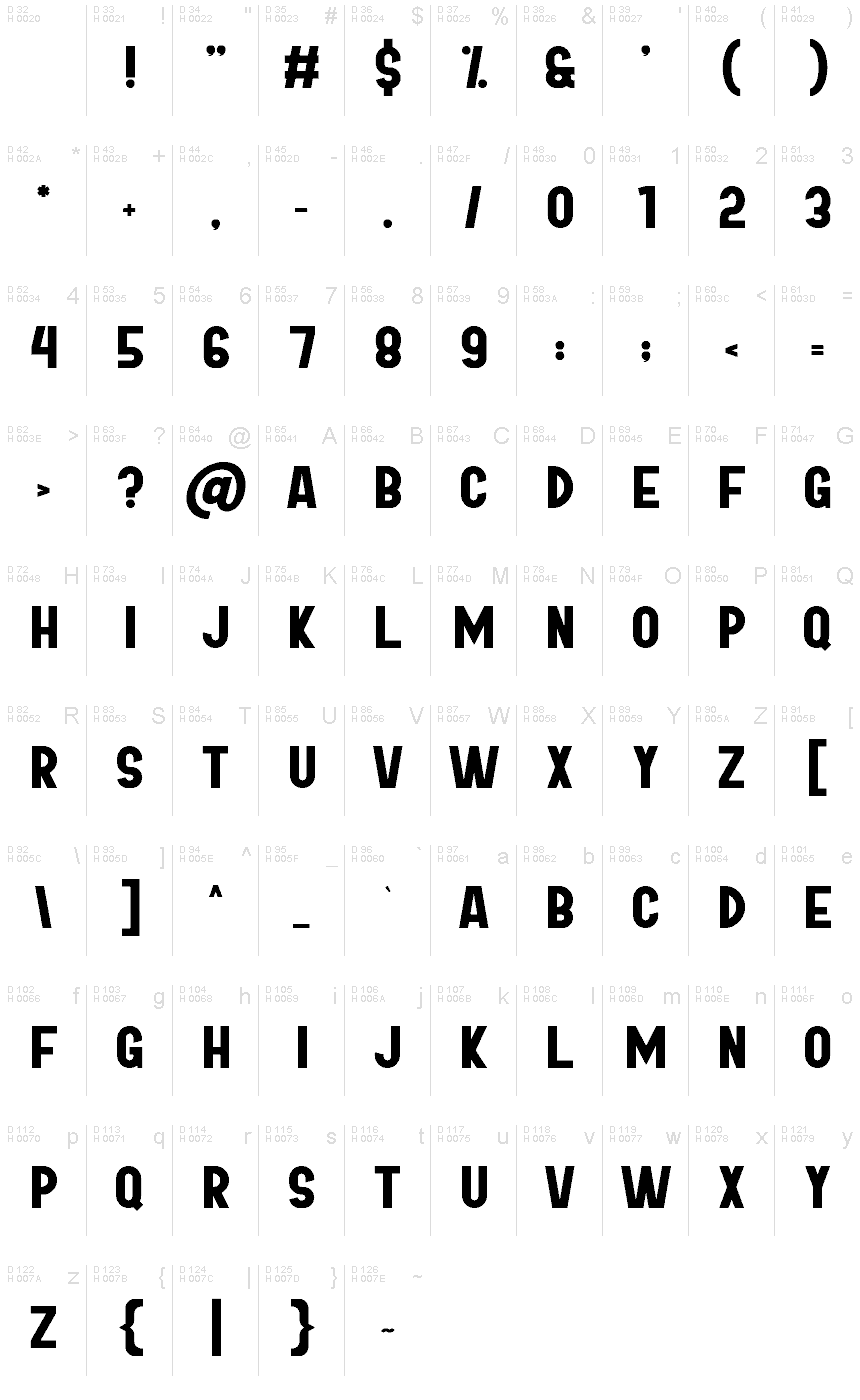
ROYAL MOSCOW
Royal Moscow font by Gilang Ternadho offers a bold, condensed sans serif design with geometric features. Its clean, modernist look is impactful and carries vintage-inspired elements that add an industrial feel to any text. The typeface strictly follows a contemporary style which best reflects in short headlines as well as in small body texts.